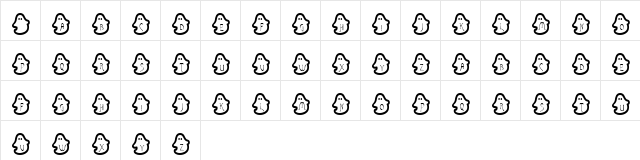
Bouh bouh Regular Font Preview
Bouh bouh Regular
Bouh bouh Regular Font Details
Design Context for Bouh bouh Typeface
Bouh bouh is a composed and adaptable typeface that performs quietly and consistently across a wide range of design contexts.